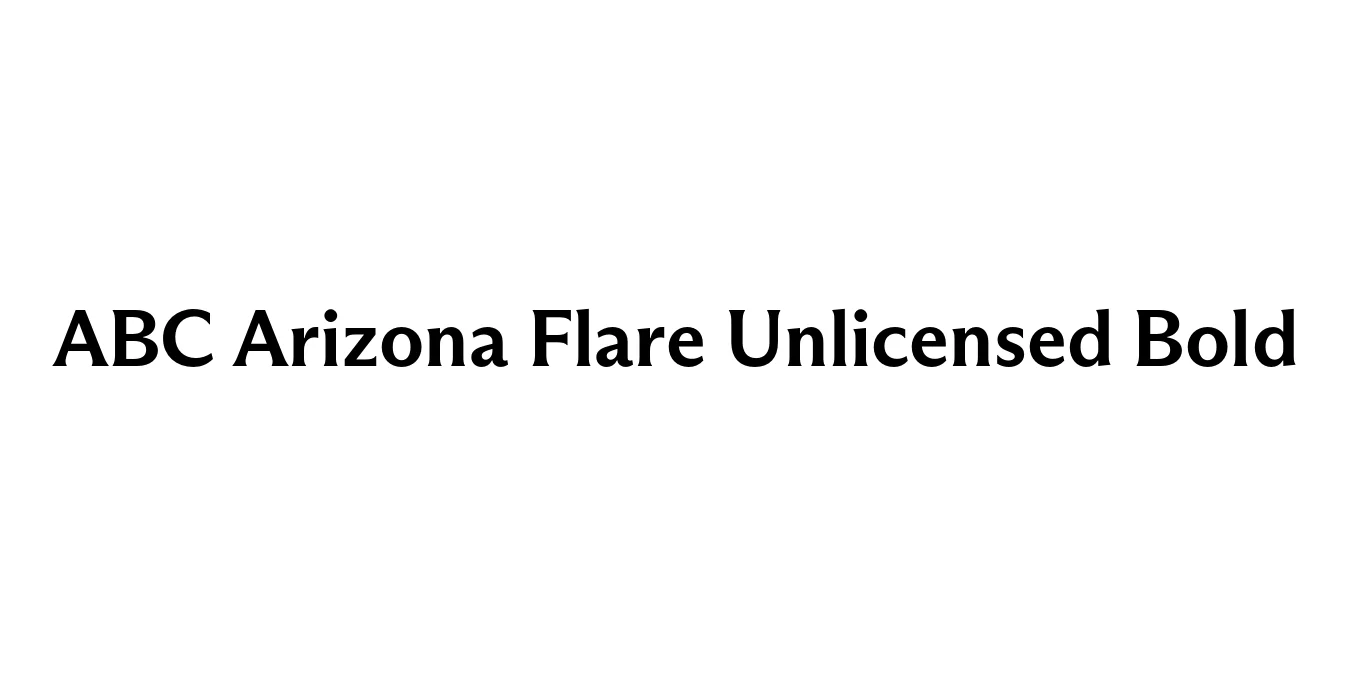
ABC Arizona Flare Unlicensed Bold
Designed by Elias Hanzer
| Category | Flare Serif |
| Designer | Elias Hanzer |
ABC Arizona Flare is a masterfully crafted weight within the expansive Arizona superfamily, designed by Elias Hanzer and released through the Swiss type foundry Dinamo. This typeface represents a landmark in font engineering, as it was conceived as a single structural system that transitions seamlessly from Sans to Serif. The Flare variant specifically introduces subtle, trumpet-like expansions at the terminals, bridging the gap between the skeletal simplicity of a sans-serif and the decorative complexity of a serif.
The Bold weight of Arizona Flare is engineered for high-impact display applications, offering a sophisticated and authoritative voice. Its design logic is rooted in the history of Latin letterforms, yet it utilizes modern variable technology to maintain perfect proportions across its various iterations. This font is widely celebrated in the design community for its versatility, allowing designers to maintain a consistent visual identity while shifting between diverse typographic moods and historical references.
ABC Arizona Flare Unlicensed Bold Best Uses
Excellent for magazine mastheads and high-fashion spreads.
Ideal for luxury brands seeking a balance between classic and contemporary.
Adds a premium, bespoke feel to high-end consumer goods.
Provides a strong, clear, yet elegant hierarchy for digital interfaces.